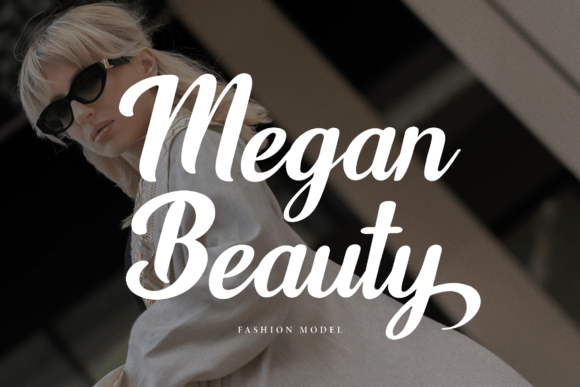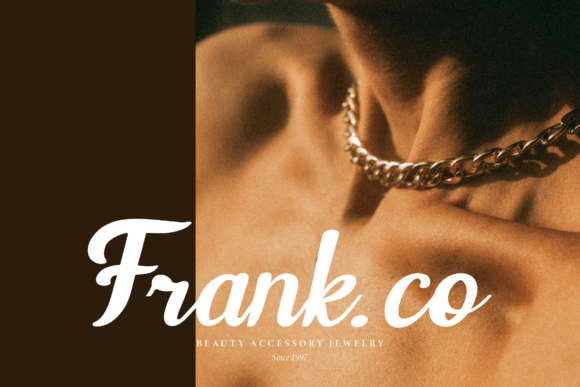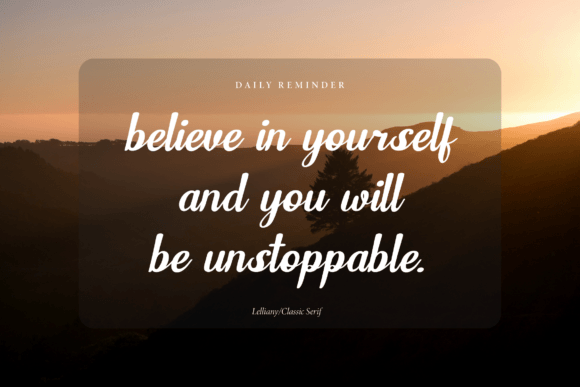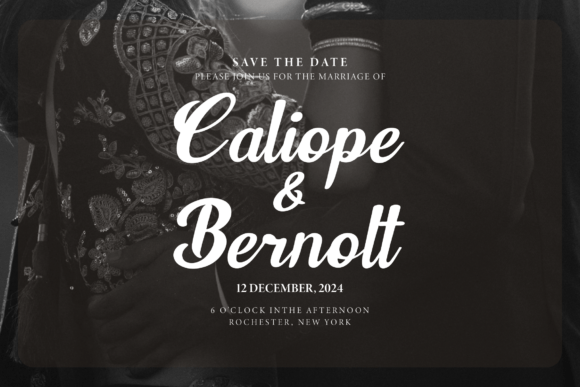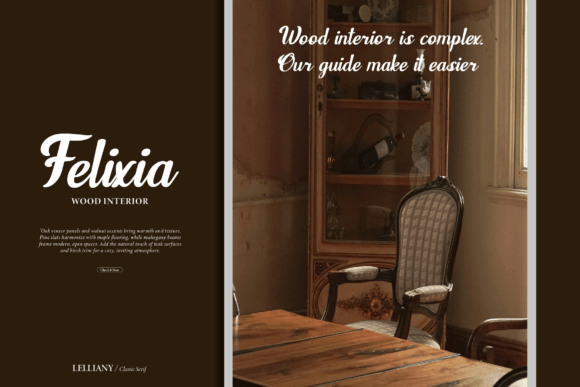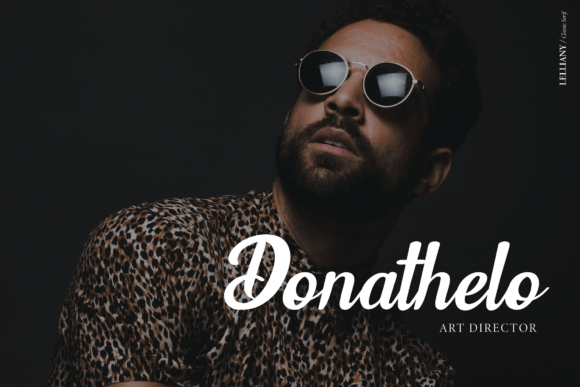
Introduction to Lelliany Font
Lelliany is a beautiful handwritten script font.
It has elegant, flowing letters that give a personal and warm feel Perfect for invitations, greeting cards, and any project where you want to add a touch of charm and creativity.
Lelliany Font offers exceptional quality and versatility, making it a valuable addition to your design toolkit. Whether you’re creating for personal projects or commercial use, Lelliany Font delivers professional results.